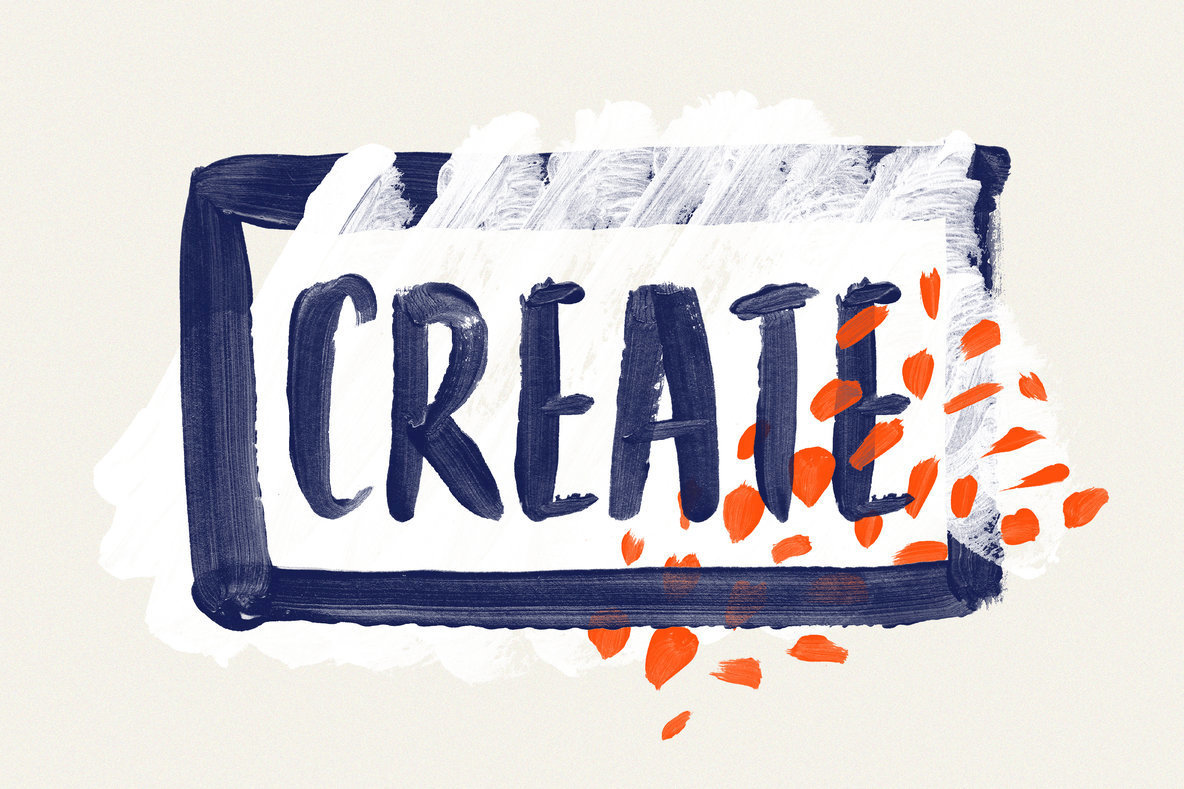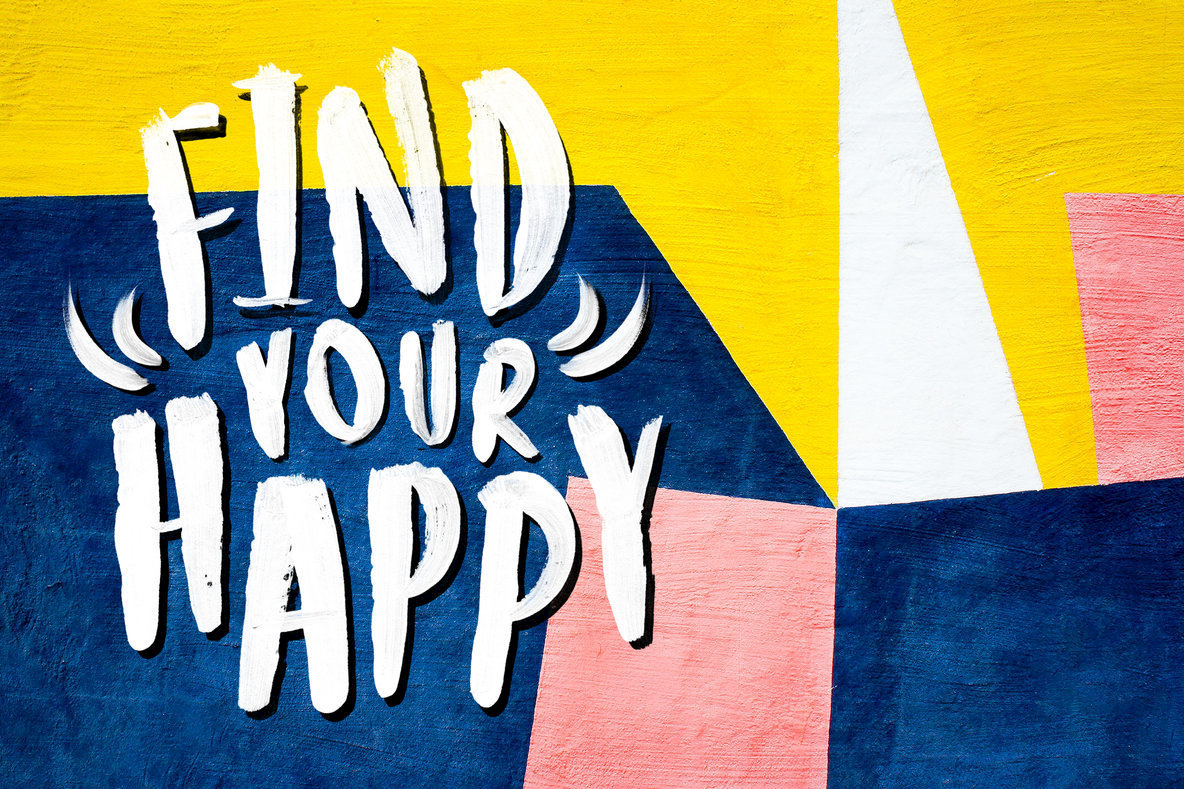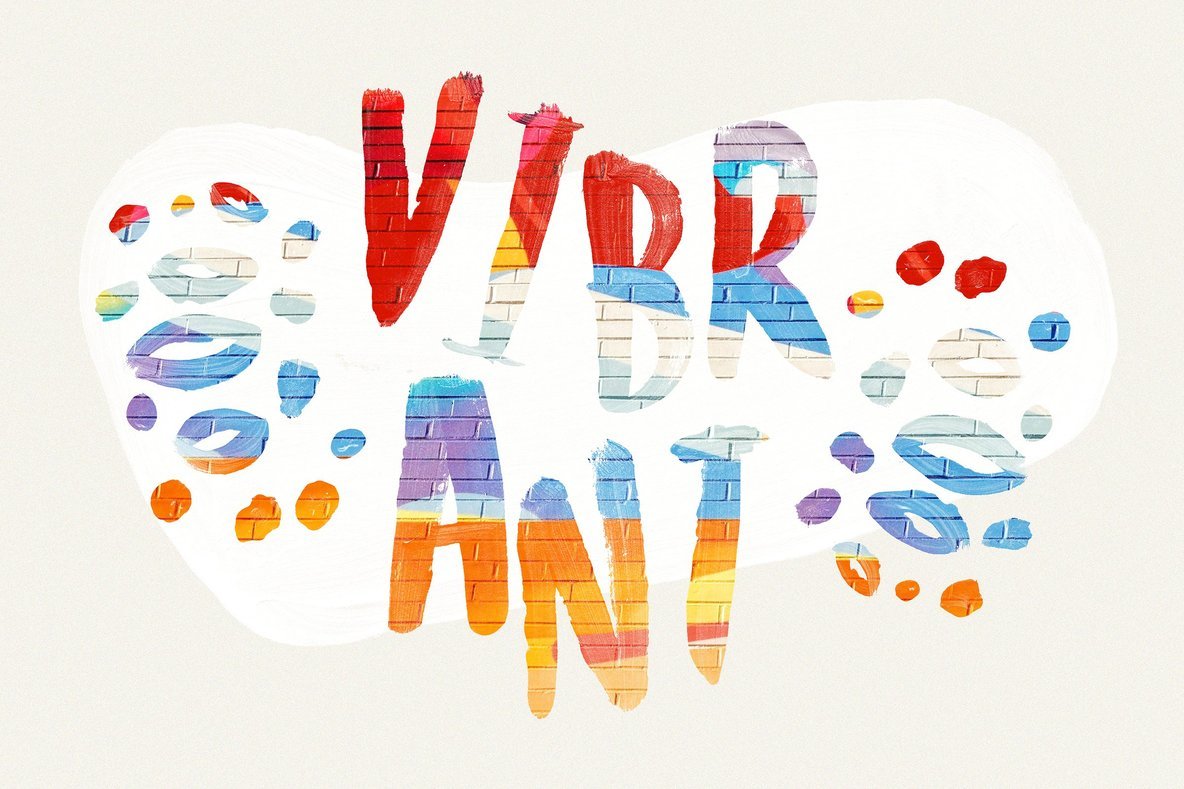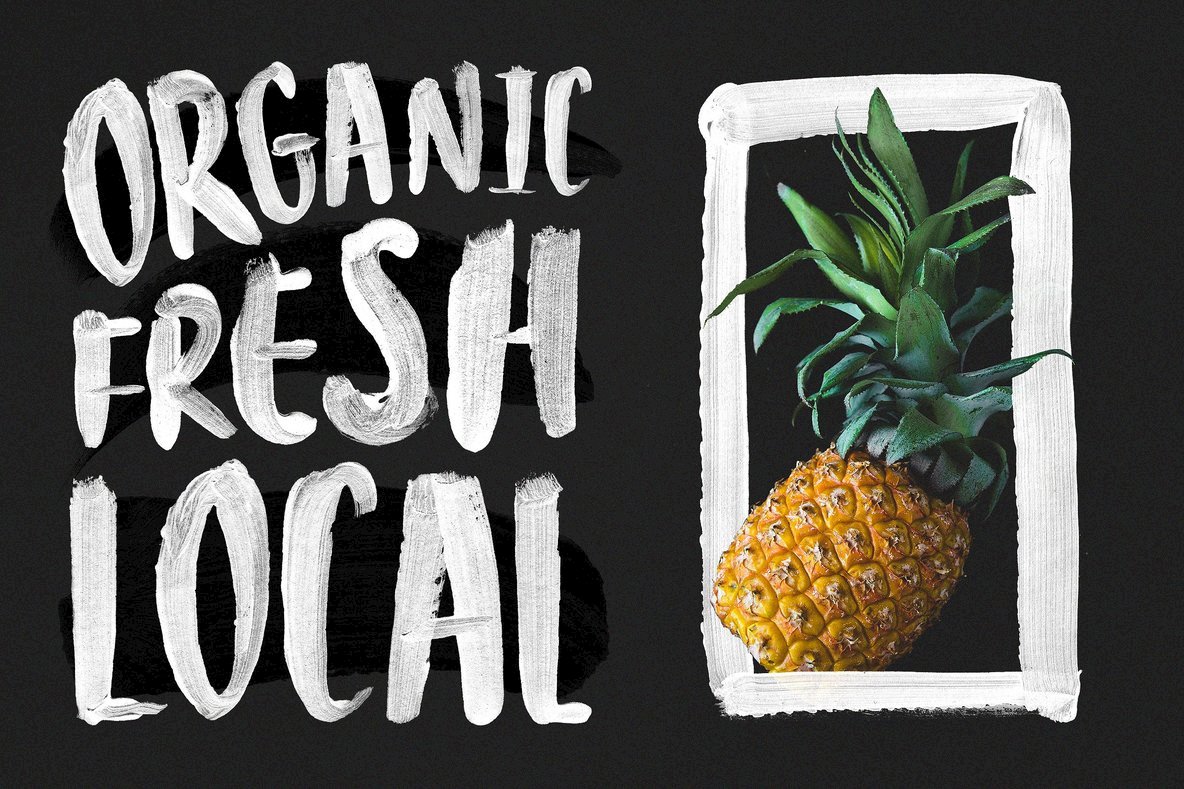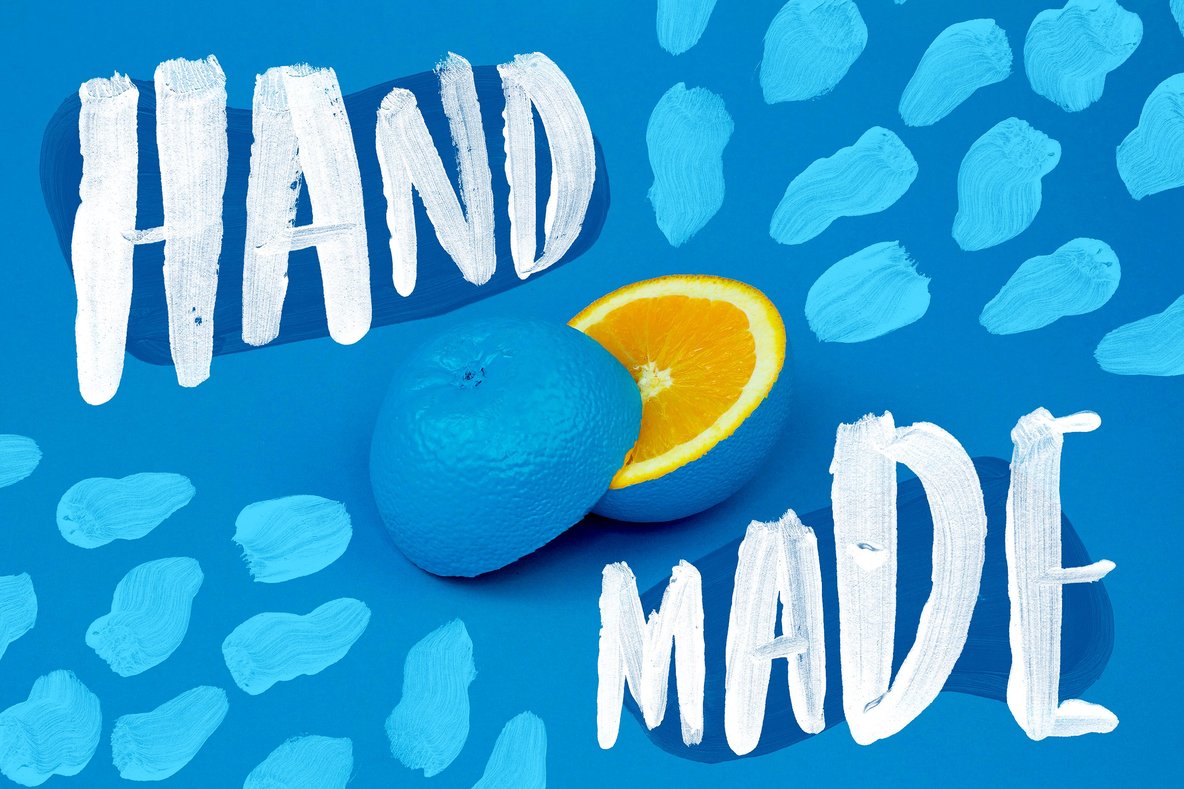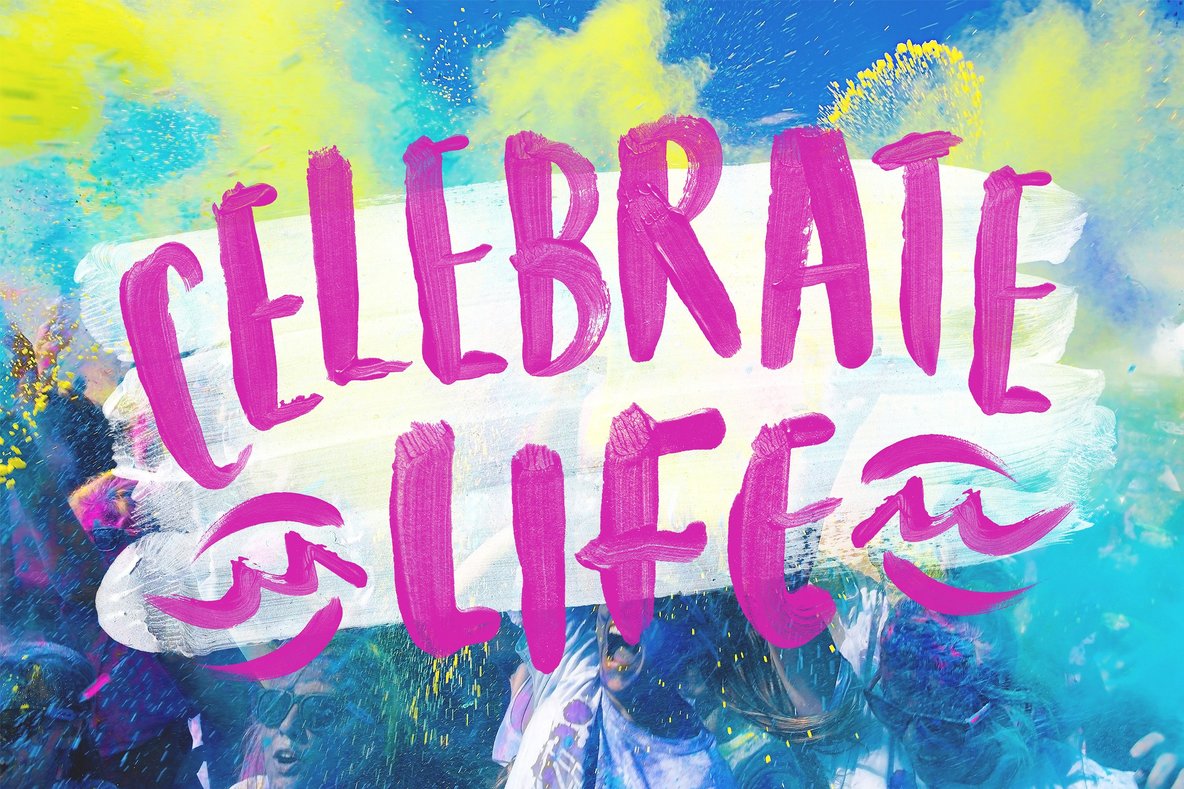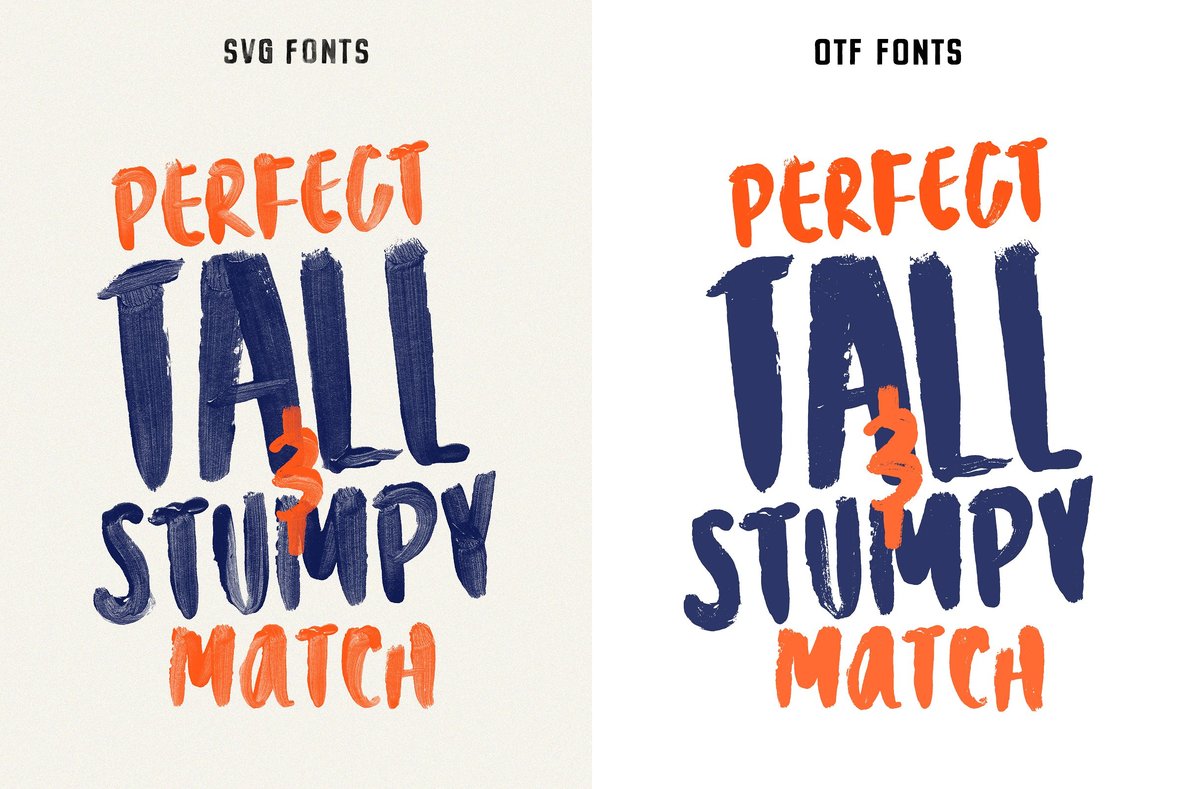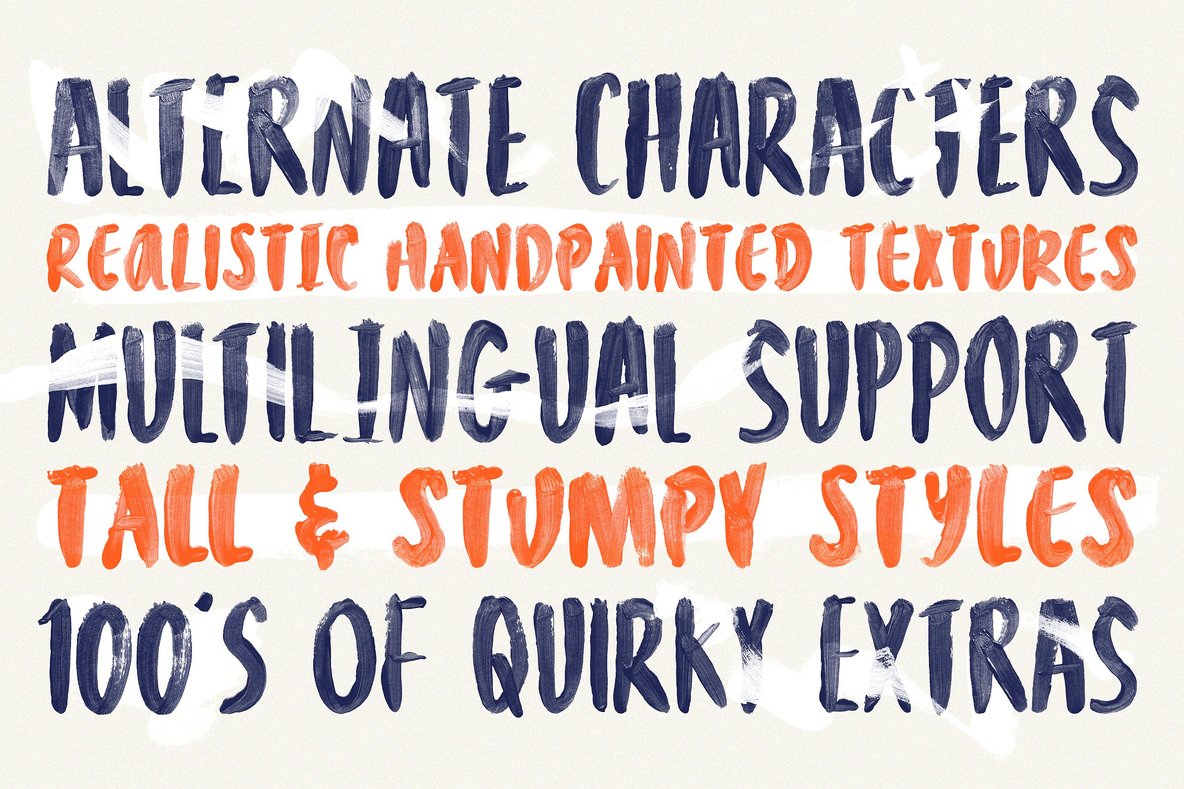
Bravura Handpainted SVG Font Duo
Introducing the Bravura SVG Font Duo: A bold and energetic brush font family full of pizzazz, quirkiness, and handpainted goodness. This excitable pair was designed to be loud, creative, and eye-catching. Making them perfect for the design of book covers, posters, apparel, packaging, editorial work, advertising, and more.
This dynamic duo contains a full set of alternate characters to help improve the handwritten authenticity of your designs as well as an SVG version of each!
- Bravura Tall: A quirky handpainted brush font and the taller of the pair. Better suited for taking center stage! Use this font if you require the traditional vector .OTF format but still the textures of an authentic brush font.
- Bravura Stumpy: Just as quirky, but the stumpier of the pair. Better suited when complimenting it's taller sibling, although, just as prepared to take the mic. Use this font if you need the traditional vector format.
- Bravura Tall SVG & Bravura Stumpy SVG: Use these fonts to automagically create custom type designs as if they were handpainted directly onto the screen. With high quality, transparent acrylic paint textures featuring throughout, these fonts are great fun and super easy to work with, requiring zero extra work. Photoshop CC 2017 or Illustrator CC 2018 and above to use
- Multilingual Support: Both the traditional vector and SVG font formats include glyphs that support Basic Latin, and European languages such as; English, Spanish, Portuguese, German, French, Italian, Swedish, Danish, Dutch, and Finnish.